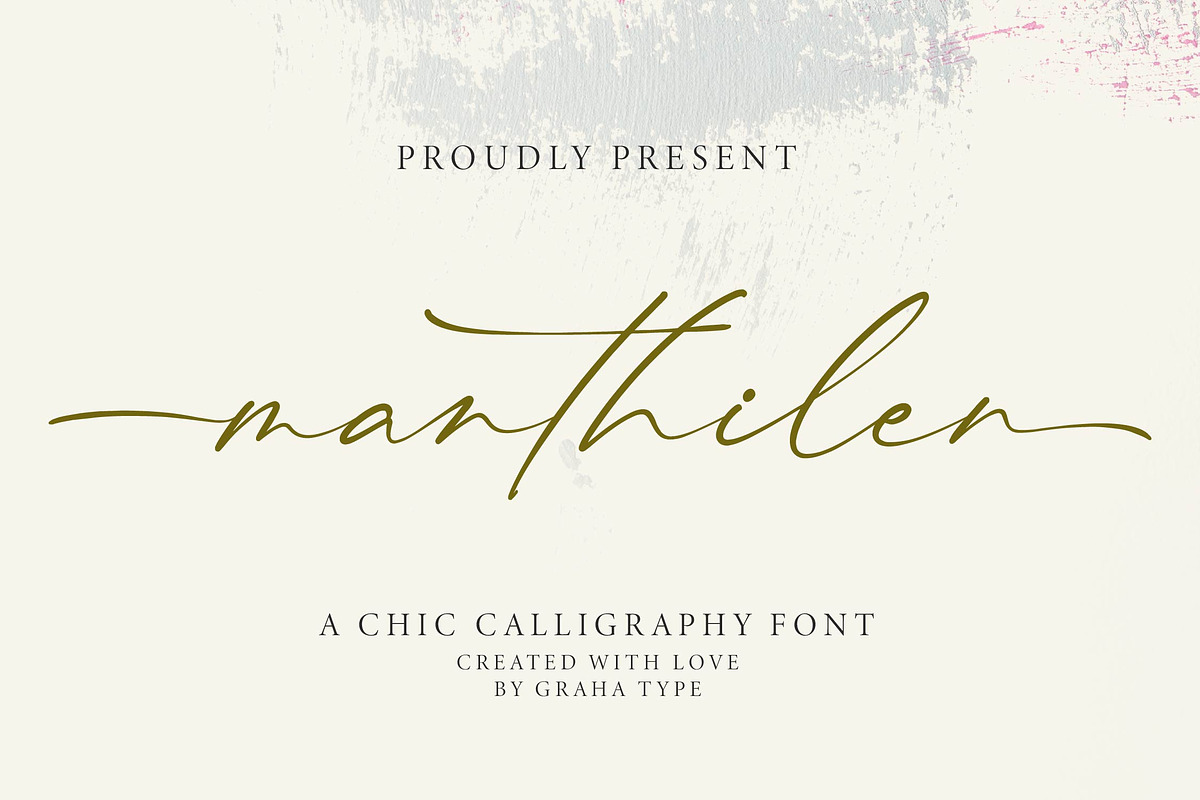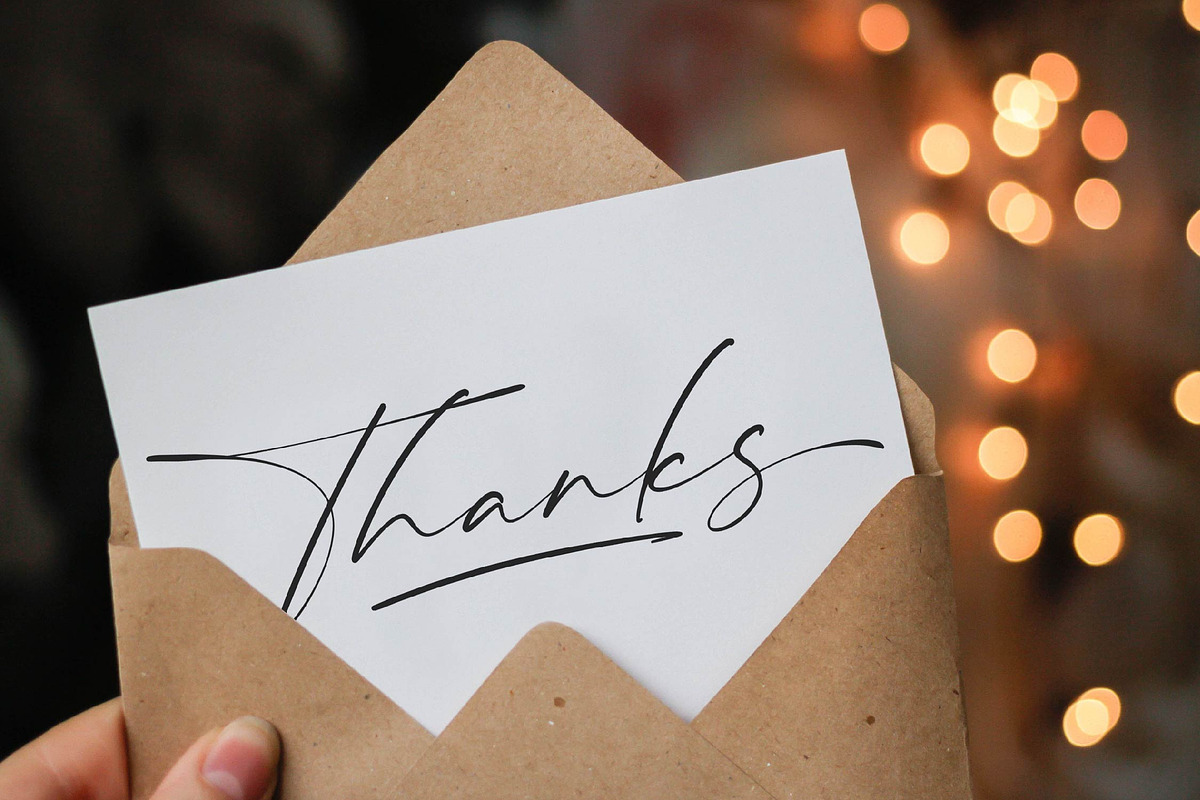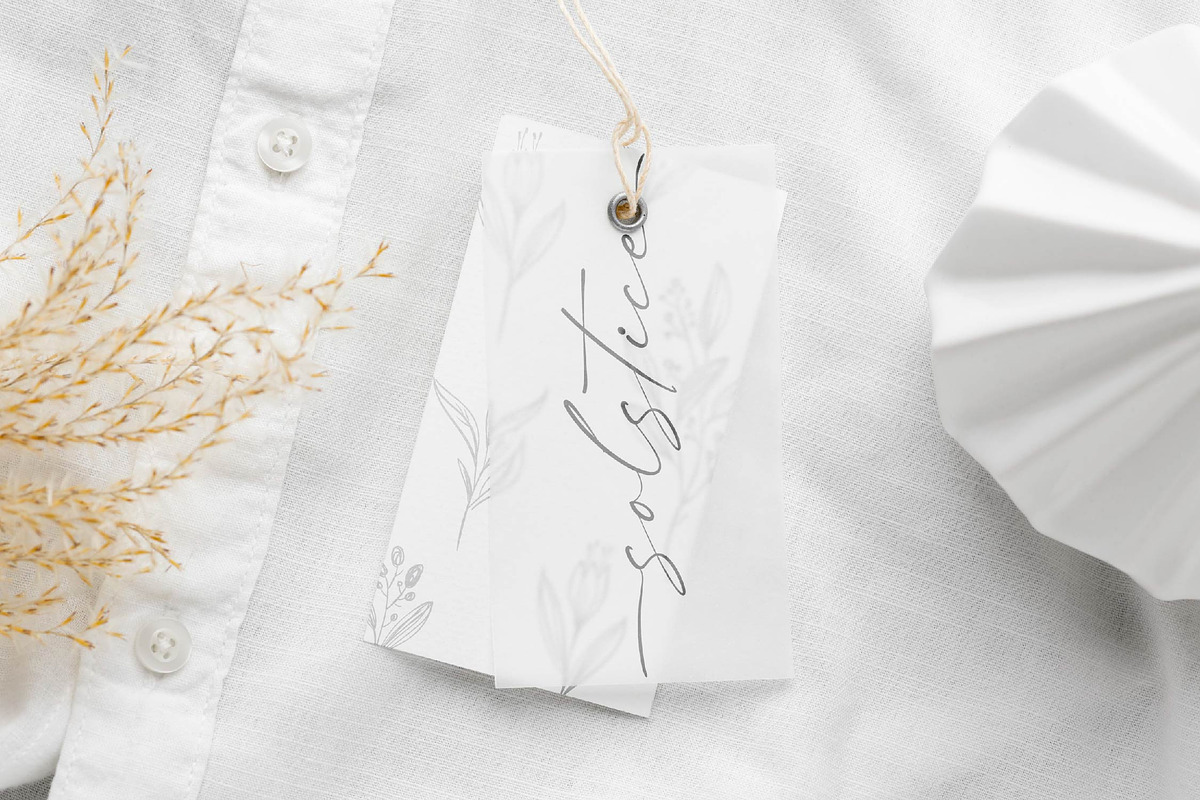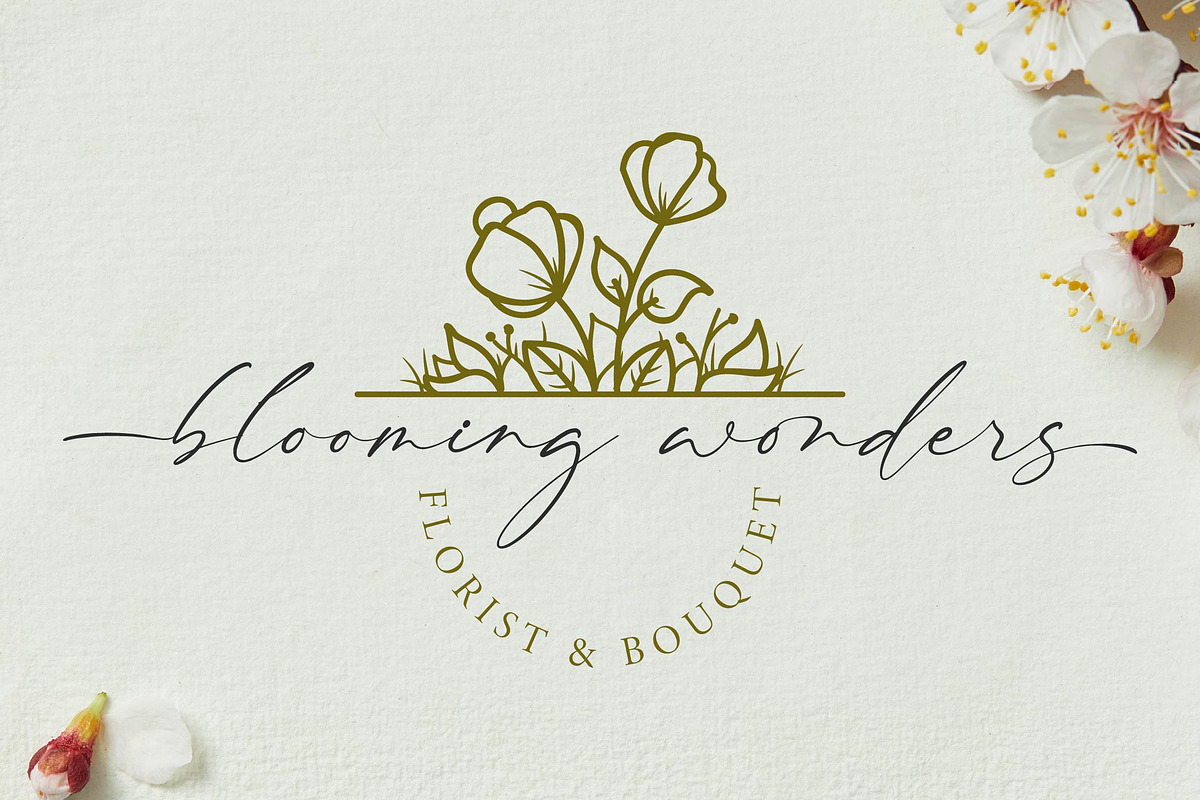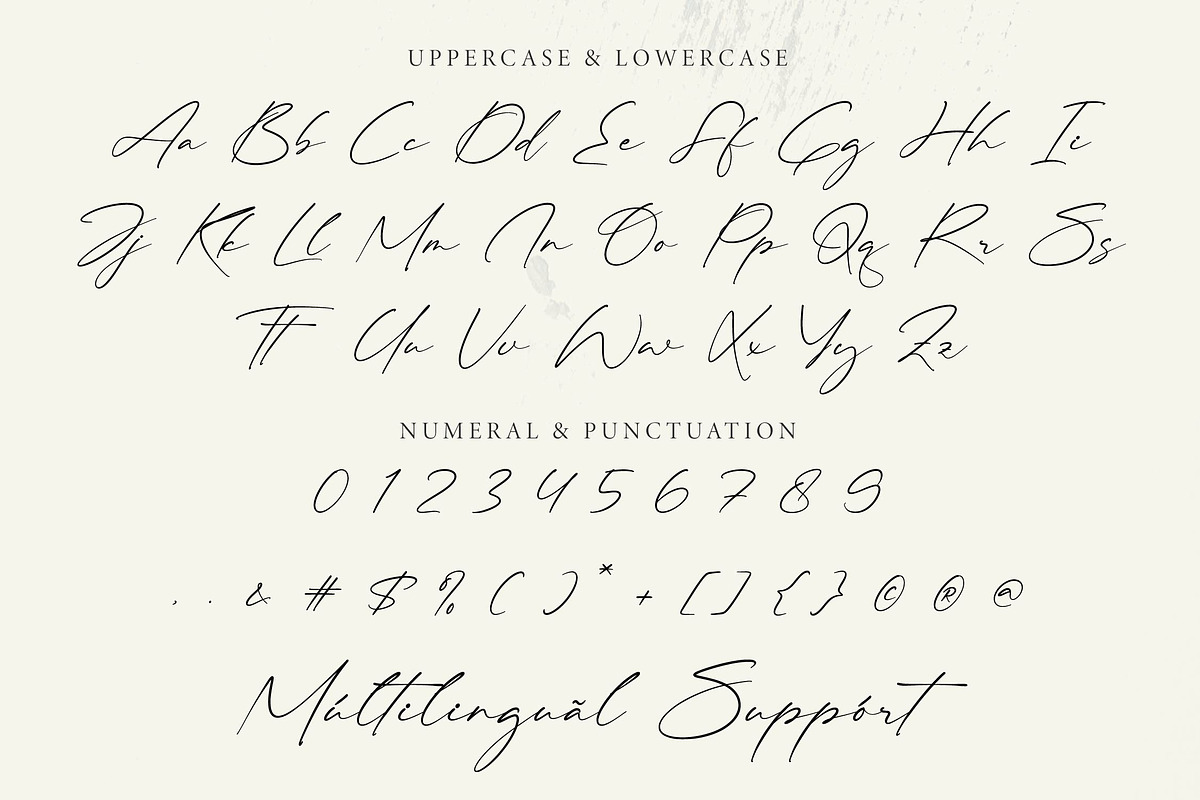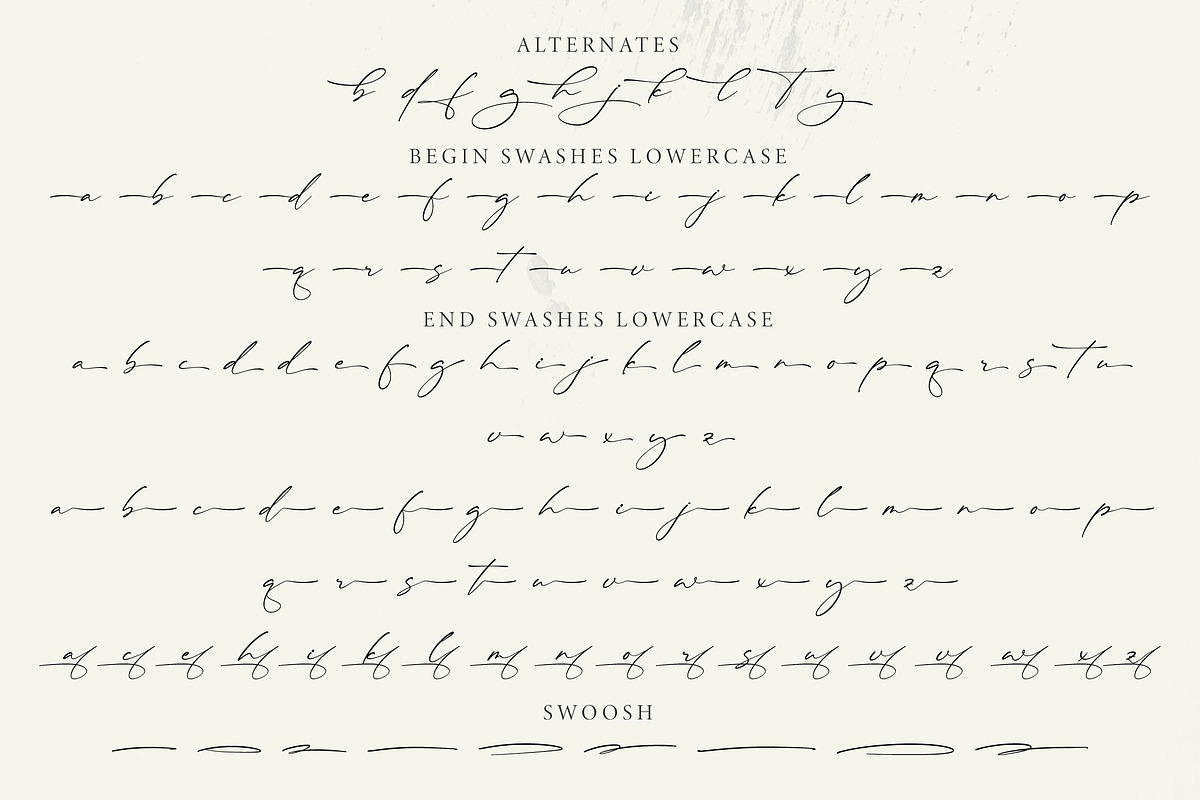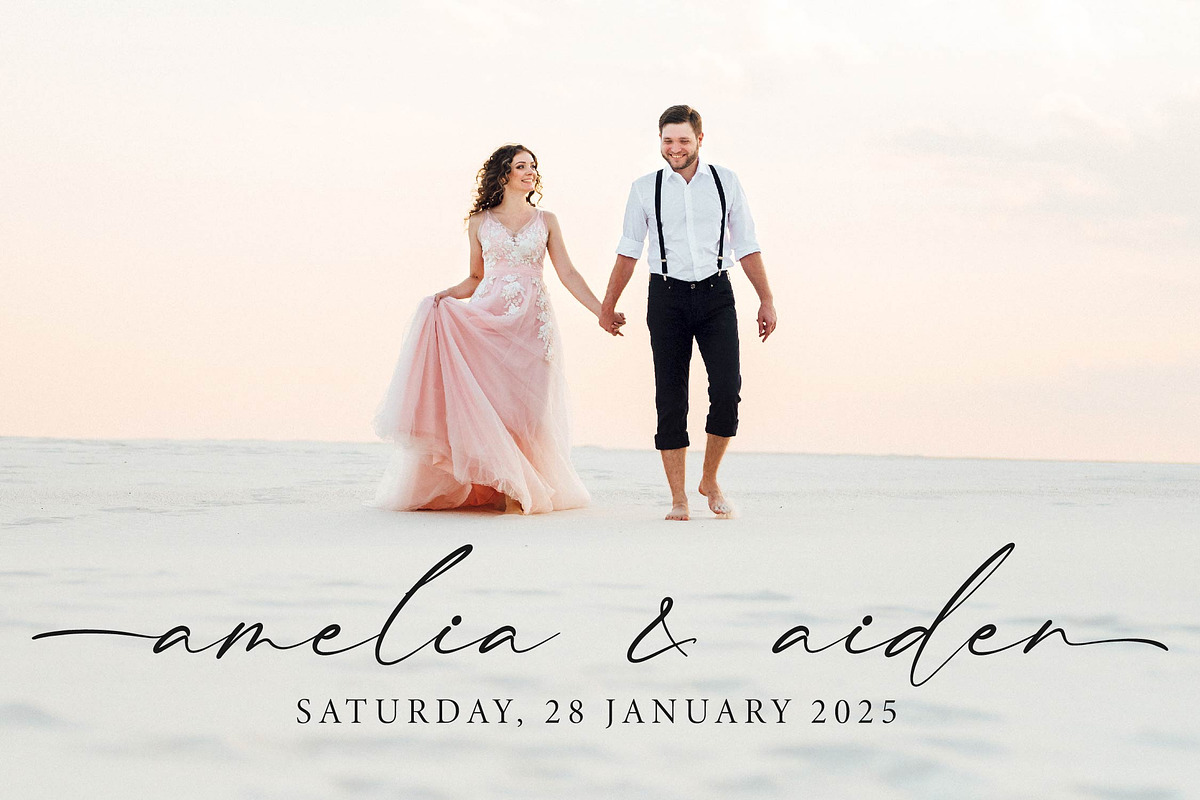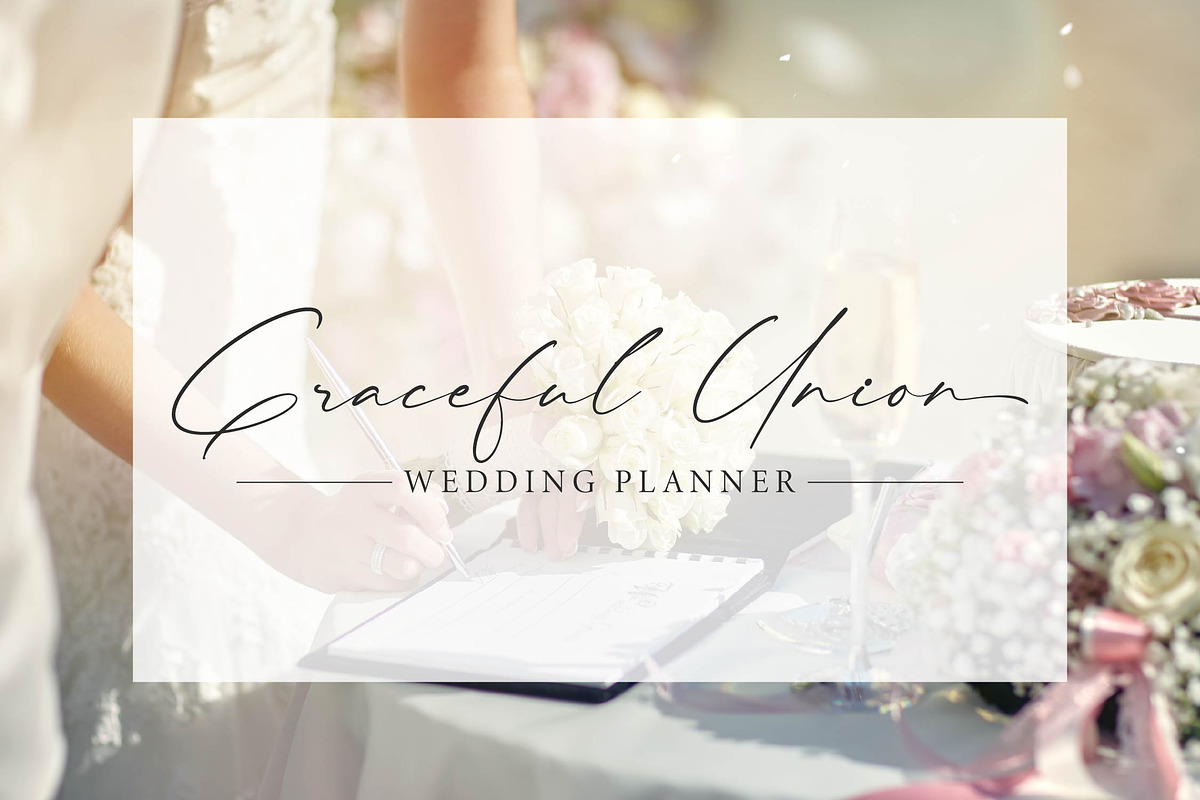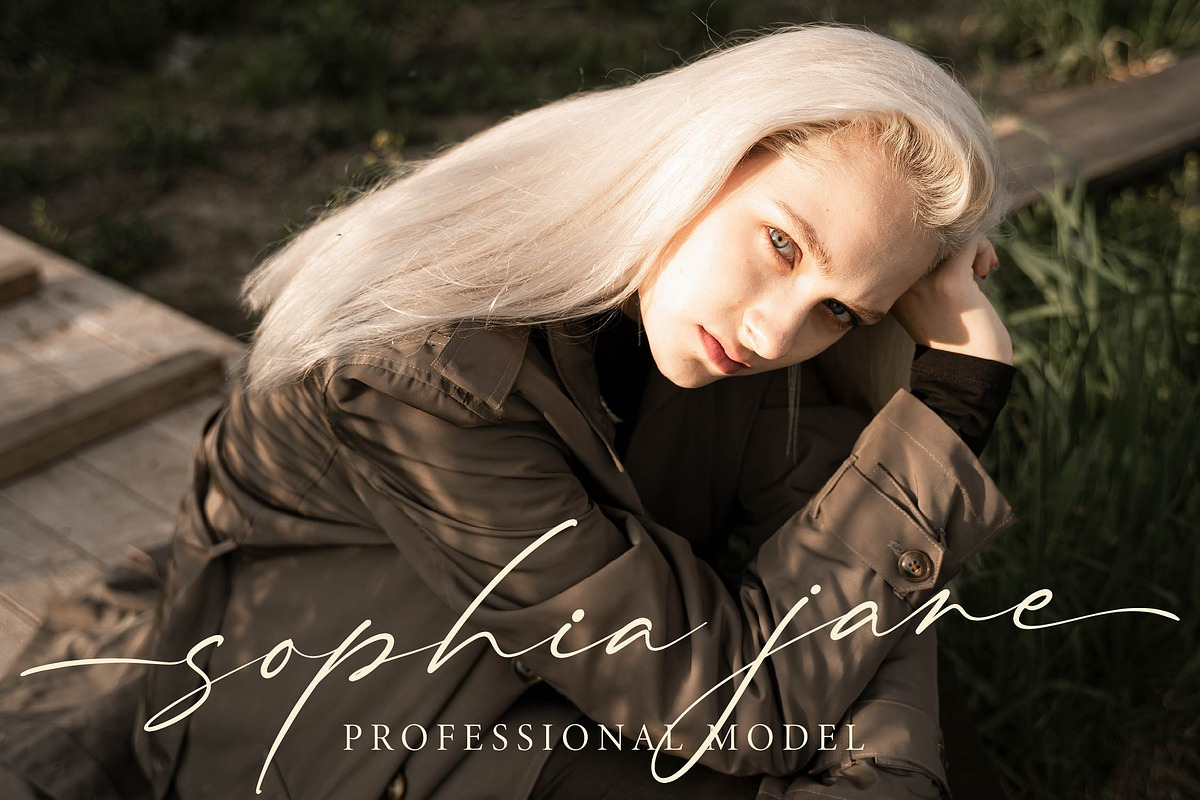
Manthilen - Chic Calligraphy Font
Manthilen is an elegant calligraphy font with smooth, flowing lines and soft curves, crafted to bring a sense of luxury and refinement to any design. Its combination of timeless elegance and contemporary style makes it the perfect choice for branding, stylish wedding invitations, and premium print materials. Whether you're creating a logo, designing an invitation, or working on upscale promotional materials, Manthilen adds a touch of sophistication and beauty to your project.